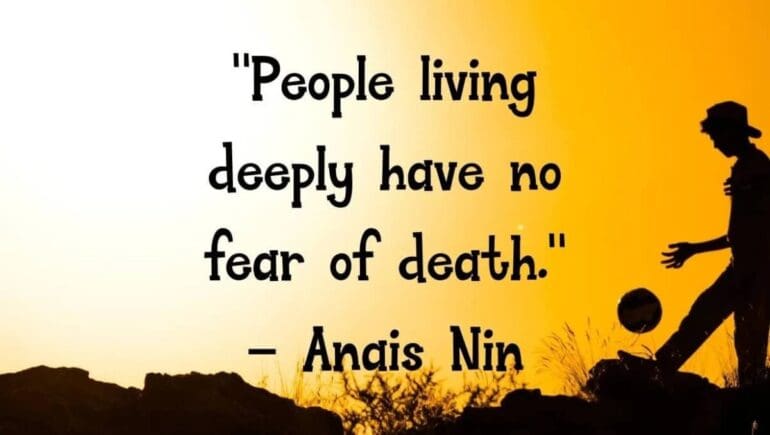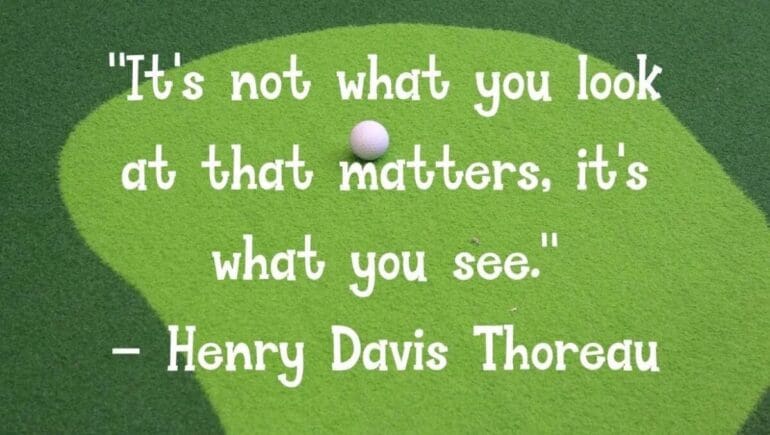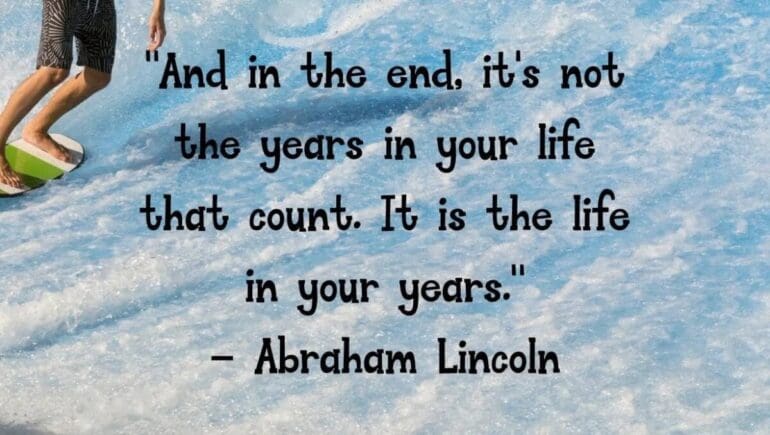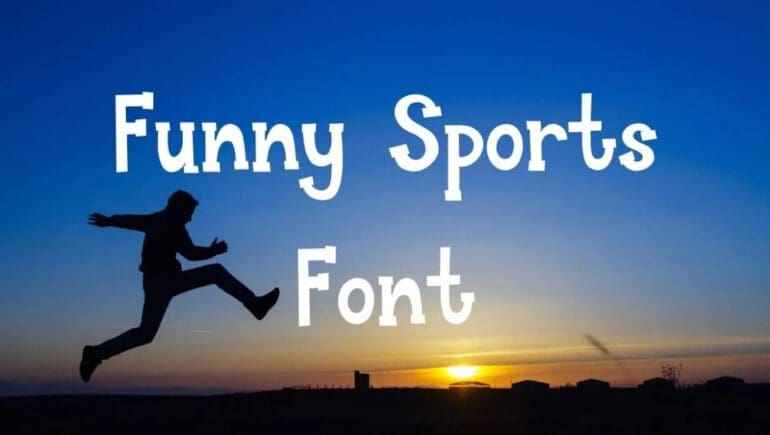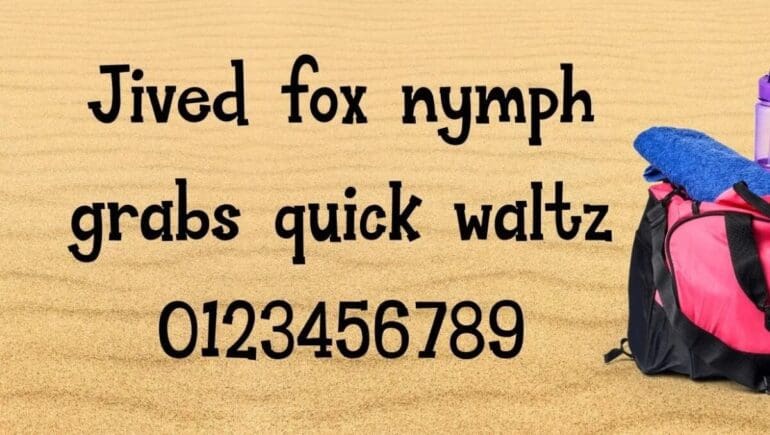
Funny Sports Font
Introducing Funny Sports Font. Representing you a top-notch and cartoon shape character typeface entitled Funny Sports Font. The typeface family belongs to the fancy font family and has been created by a great type artist “Fontles”. The font style provides a playful and animated texture appearance and works well with all kinds of designs. The typeface style is intended to give a pure fancy influence with graceful letterforms.